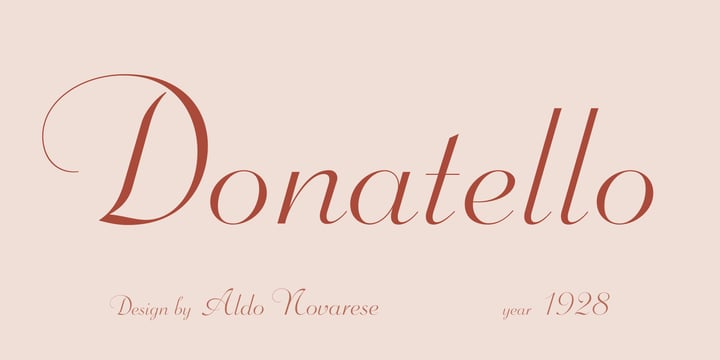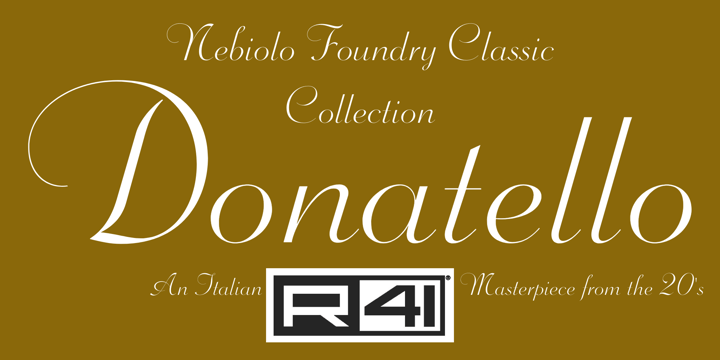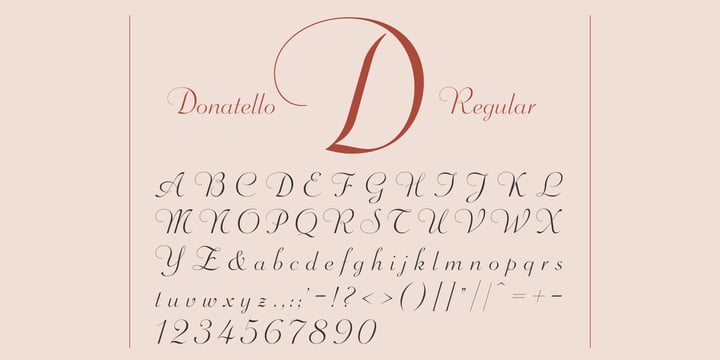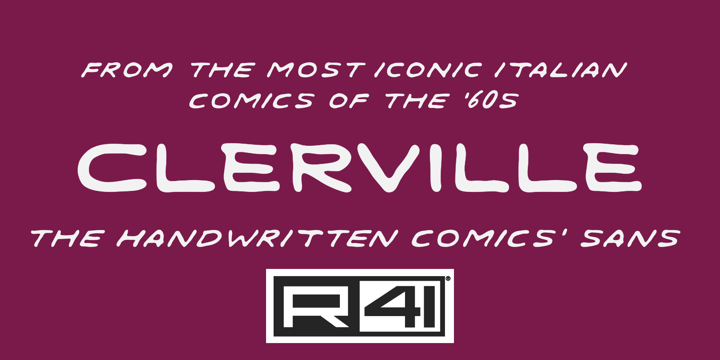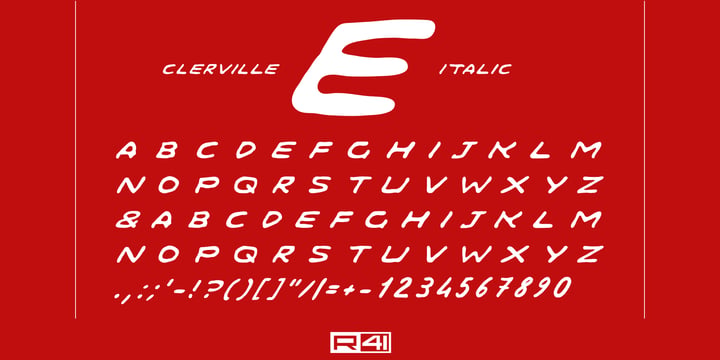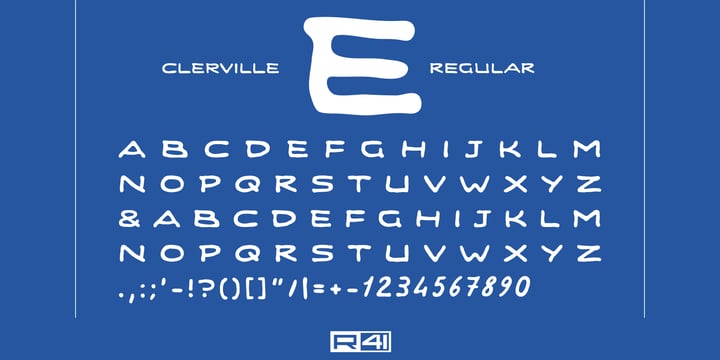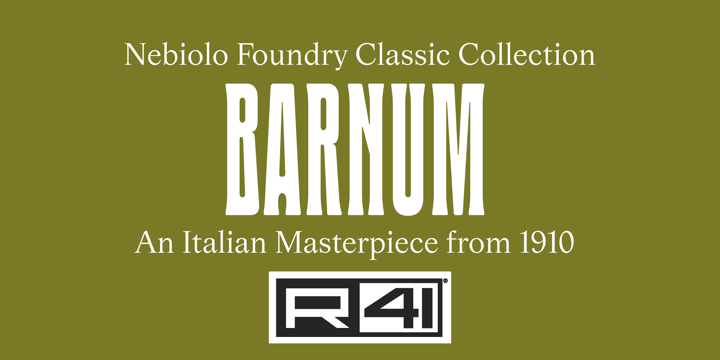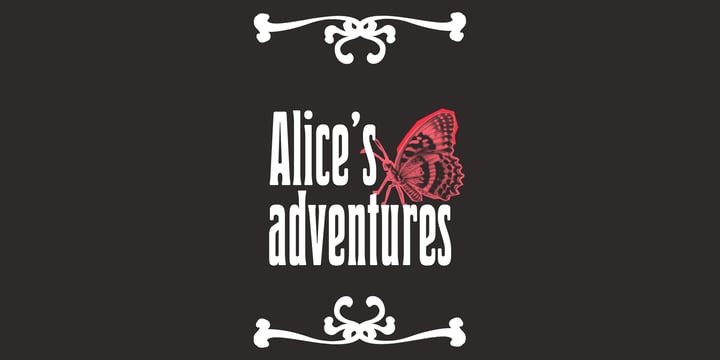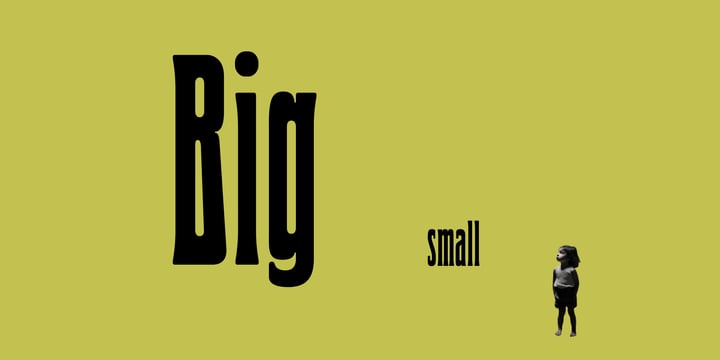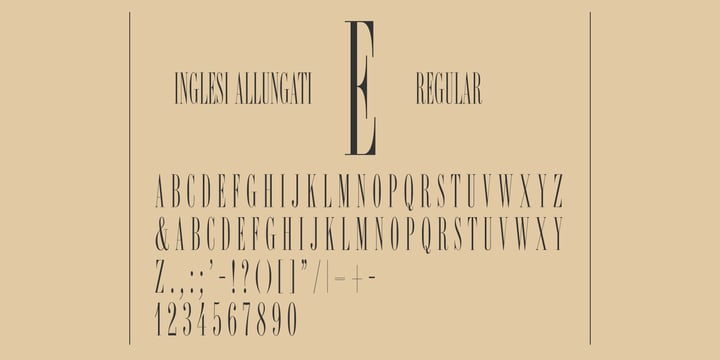
Ariel Brandolini
Born in 1979 in Buenos Aires (Argentina), and raised in Alejandro Korn, after graduating in graphic design at the University of Buenos Aires (UBA), Argentina, he held a position as assistant professor for Argentina's leading graphic designer, architect Guillermo González Ruiz. In 2002 he began working at Design Associati communication studio in Treviso, Italy, first as a collaborator and then as a partner.
Ariel Brandolini has held several collaborations with Italian institutions and museums, including the Salce Collection National Museum and the Luigi Bailo Museum in Treviso, the Historical Museum & Park of Miramare Castle in Trieste, the Tipoteca Museum of type and printing in Cornuda, the Paff! International Museum of Comic Art in Pordenone.
Parallel to his activity as graphic designer, he has collaborated and published various graphics magazines and books. Since 2021, he has been writing on the topic of alternative lettering in the journal "Contesto” by Frisco Editions.
Over the past few years, his ongoing research in typographic design has led him to held teaching positions at the IUSVE University in Venice and Verona, to collaborate with Tipografia Unione in Vicenza and to develop a series of fonts for R41 Foundry, inspired by the catalogs of Fonderia Nebiolo in Turin, at the time when Aldo Novarese was director of the art studio.
His main influences are futurism, experimental and Italian cinema, and industrial music.